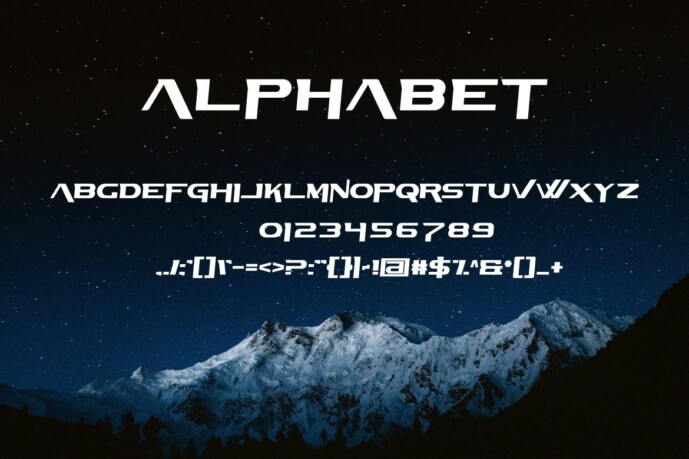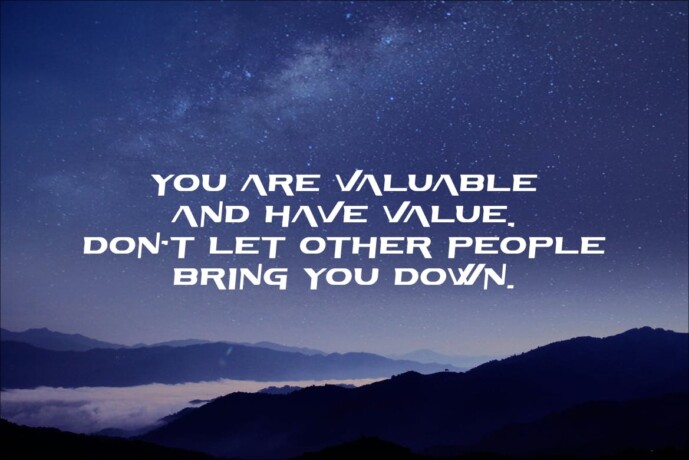
Vazega Font
Vazega Font, a font that embodies the dynamic spirit of modern automotive technology and the future of motor racing. With its sleek and futuristic design, this font is designed for projects that demand a high-tech and contemporary aesthetic. Whether it is an automobile brand, racing events or any other industry-leading related design, “Vazega” Accelerates your typography with bold, forward-looking style.